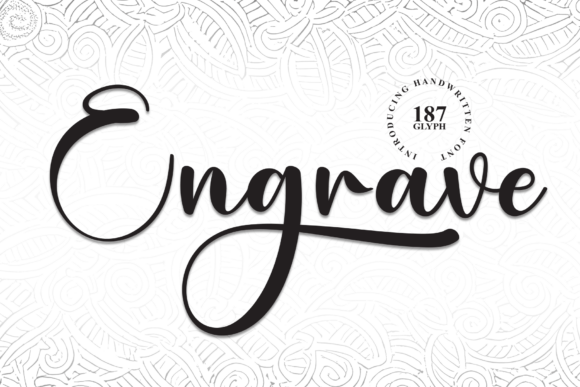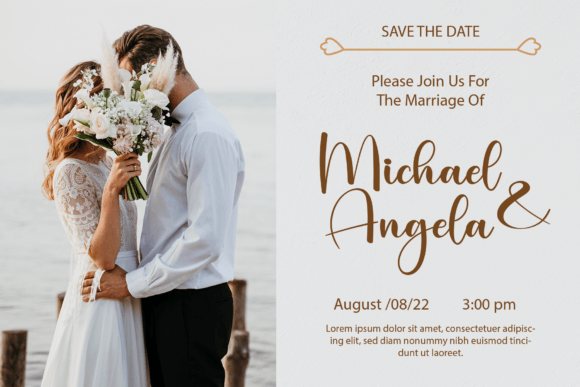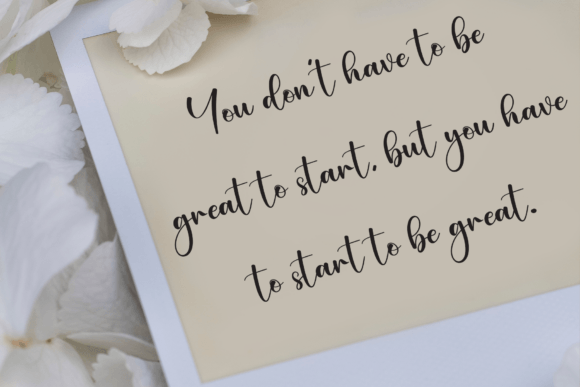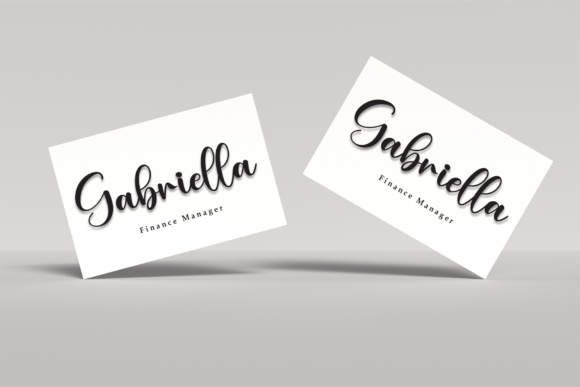
Engrave Font: Elegant Script for Wedding Invitations & Branding
About the Engrave Font
Step up your design game with Engrave Font, a font that exudes confidence and style. Engrave is a charming handwritten script font, perfect for adding a personal, festive touch to your designs. Its flowing, elegant curves give a warm, joyful feel, making it ideal for holiday cards, invitations, and seasonal projects.
Engrave’s elegant curves and handcrafted feel make it particularly effective for branding projects emphasizing a personal touch, such as boutiques, artisan businesses, or wedding stationery. It shines in headlines, short quotes, and logos, adding a touch of festive charm. However, its intricate detail makes it less suitable for body text or UI elements where legibility is paramount. Avoid using it for large blocks of text.
Pairing Engrave with a clean sans-serif like Helvetica Neue for body copy creates a strong contrast, balancing the script’s playful energy with a sense of modern sophistication. Alternatively, a classic serif font such as Garamond could offer a more traditional, yet equally harmonious, pairing.
Engrave’s overall personality is best described as charming and celebratory, conveying warmth and a touch of vintage elegance. Avoid using it for projects requiring a serious or corporate aesthetic.
Engrave Font Usage Examples
Engrave Font Example